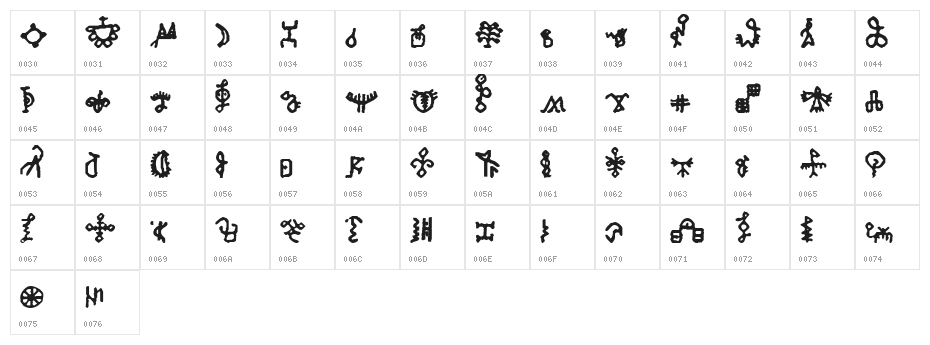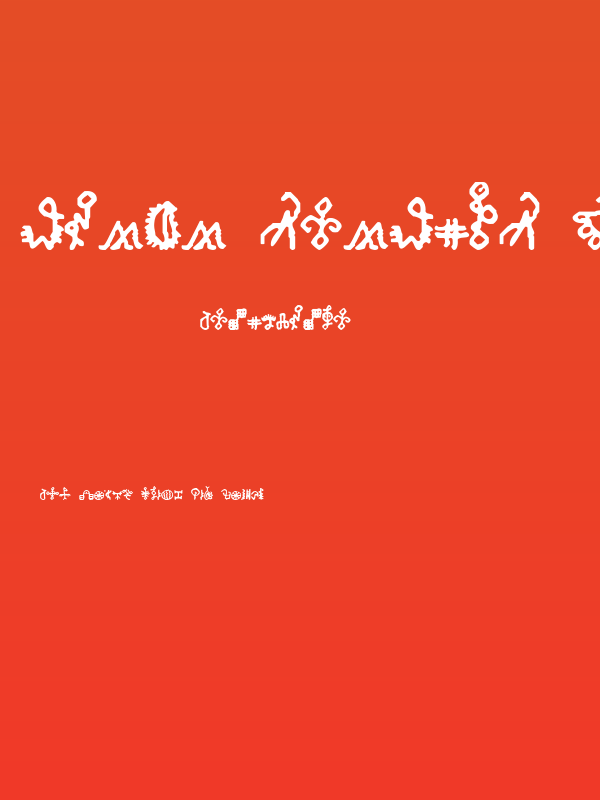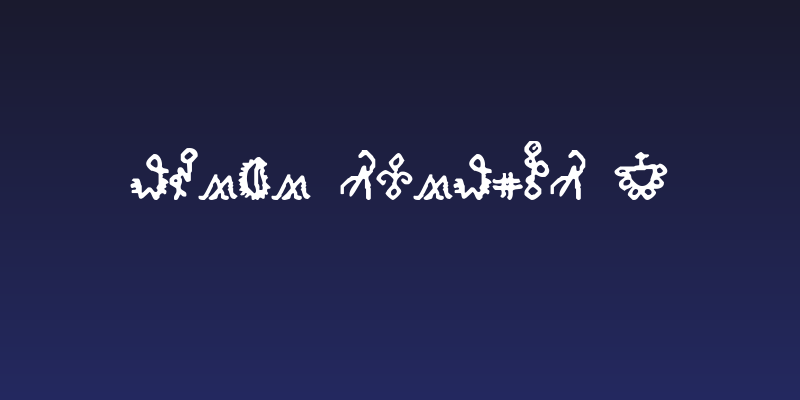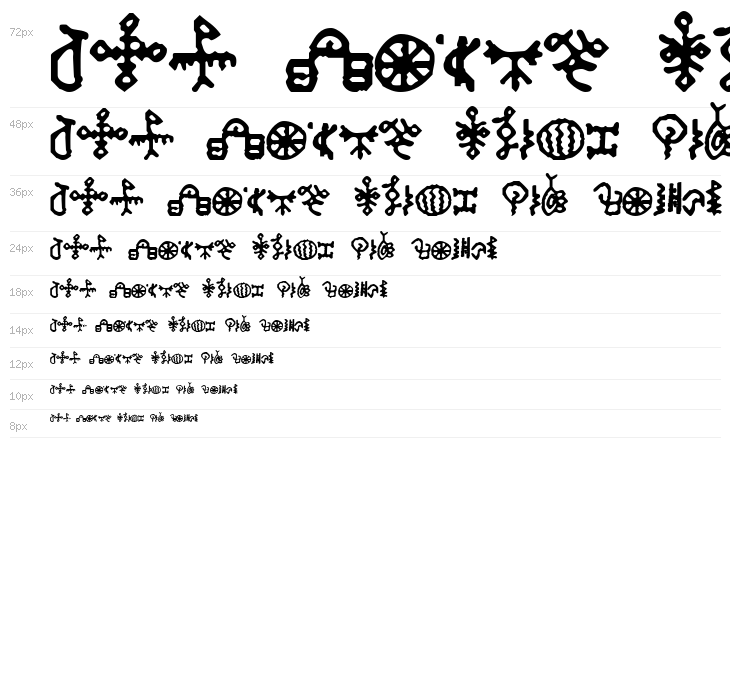
Bamum Symbols 1 Font
Bamum Symbols 1 Description
Highly ornamental and symbolic script composed of intricate, abstract shapes and pictograms, with each character featuring unique, complex forms and heavy line weight. The symbols are visually dense and appear hand-drawn, with irregular contours and a decorative, almost illustrative quality.
| Overall Style | Decorative, Ethnic, Historical |
| Use Case | Display, Cultural materials, Art projects |
| Proposed Projects | Cultural exhibitions, historical reconstructions, educational materials on African scripts, artistic posters, or decorative projects. |